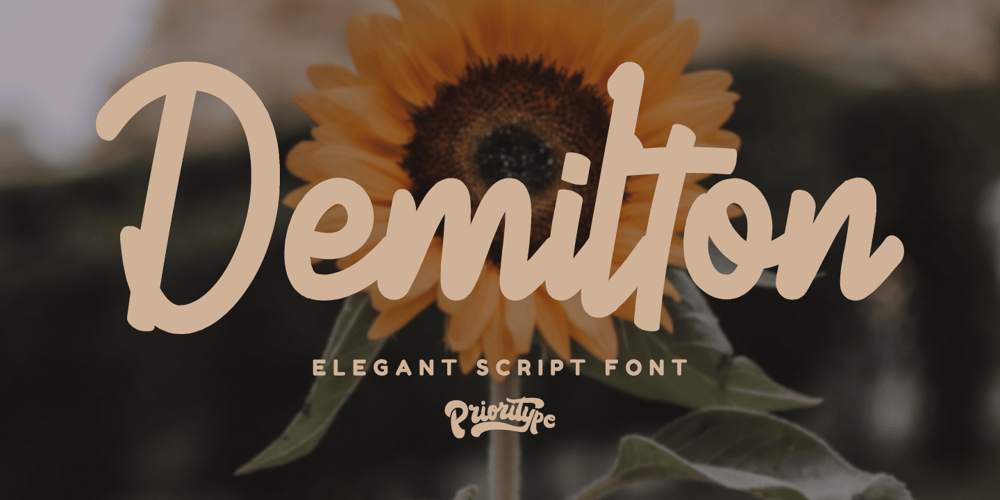
Demilton Font Family was designed by Prio Nurokhim Aji and published by Prioritype. Demilton contains 1 styles and family package options. This minimalist and elegant looking font is ready to accompany your project. Simple but powerful and beautiful. Can be applied to packaging logos, wedding invitations, branding, creative posts, posters, quotes, landing pages, and much more to explore. See some of the previews above for reference.Features:-Uppercase-Lowercase-Numeral-Punctuation-Multilingual-LigatureNote : Open with a program that supports the Opentype feature and an glyphs panel is available to see more alternative characters. Sample programs like Adobe Illustrator and the like!Thanks.